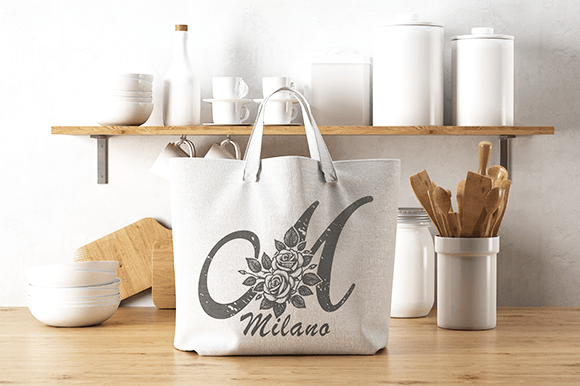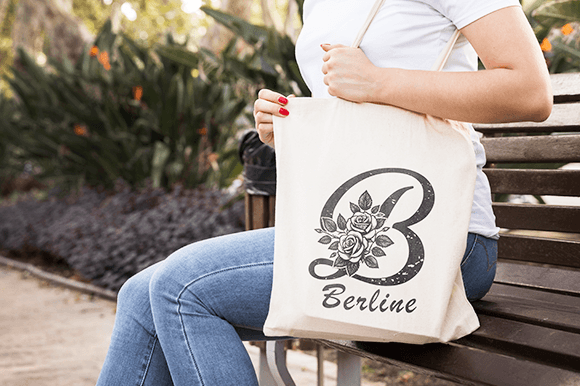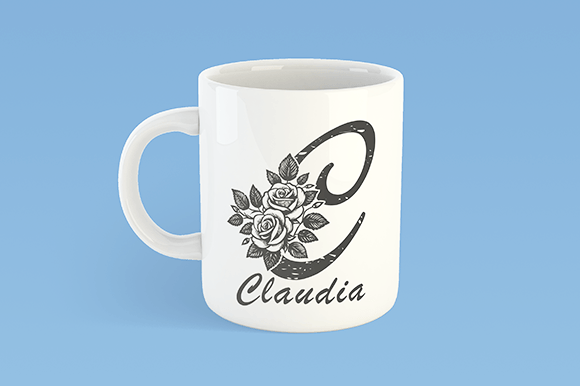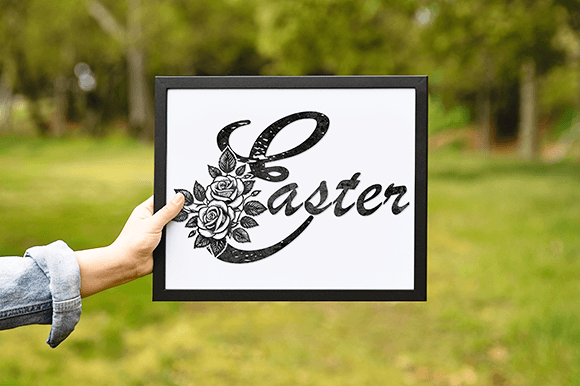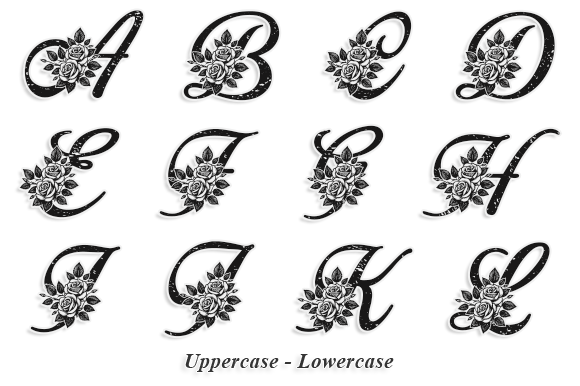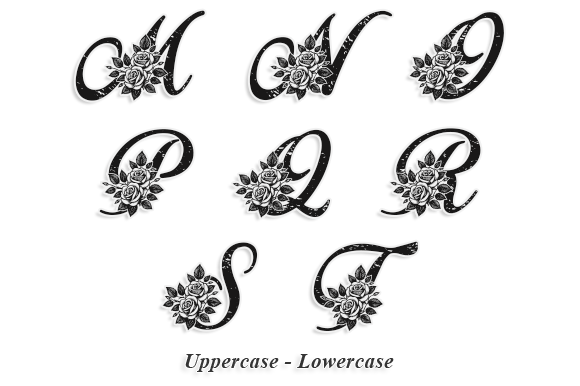
Introduction to Raisha Flower Monogram Font
Do you remember the moment when a design idea hits you like a ray of sunshine, and you can’t wait to bring it to life? For designers, that spark of creativity is what drives us to create something truly special. And, what’s even more magical, is when we stumble upon the perfect design resource to help us breathe life into our imagination. That’s where the enchanting Raisha Flower Monogram Font comes in – a game-changer for your creative projects.
This exquisite font is a masterclass in elegance and sophistication, boasting intricate details and ornate flourishes that will elevate your designs to new heights. Whether you’re working on a project that requires a touch of whimsy or a dash of luxury, the Raisha Flower Monogram Font is sure to impress. Plus, with its transparent background and high-quality design, you can use it with confidence, knowing it will integrate seamlessly into your visual canvas.
Key Features of Raisha Flower Monogram Font
- High-quality design resource for creative projects, perfect for adding a touch of elegance and sophistication.
- Comes with a transparent background, allowing for easy integration into various design elements and backgrounds.
- Unique monogram design featuring intricate floral patterns, ideal for creating personalized and exclusive designs.
- Perfect for use in various design projects, including wedding invitations, branding materials, and decorative elements.
Honest Review: Raisha Flower Monogram Font
As a designer, I’m always on the lookout for high-quality design resources to elevate my creative projects. Recently, I stumbled upon the Raisha Flower Monogram Font, and I’m excited to share my honest review.
- Unique and delicate floral design that adds a touch of elegance to any project
- High-quality font that’s perfect for a variety of creative projects, from wedding invitations to branding materials
- Transparency background option, allowing for seamless integration into design projects
- Limited character set, which may not be suitable for longer texts
- No bold or italic variations, which could be a drawback for some designers
Overall, the Raisha Flower Monogram Font is a beautiful addition to any designer’s toolkit. While it may have some limitations, its unique design and high-quality make it an excellent choice for creative projects. If you’re looking for a delicate, floral font, this one’s definitely worth checking out.
The Raisha Flower Monogram Font is perfect for use in wedding invitations, branding materials, and other creative projects where a touch of elegance and sophistication is desired. Its transparent background and high-quality design make it a versatile and useful design resource.